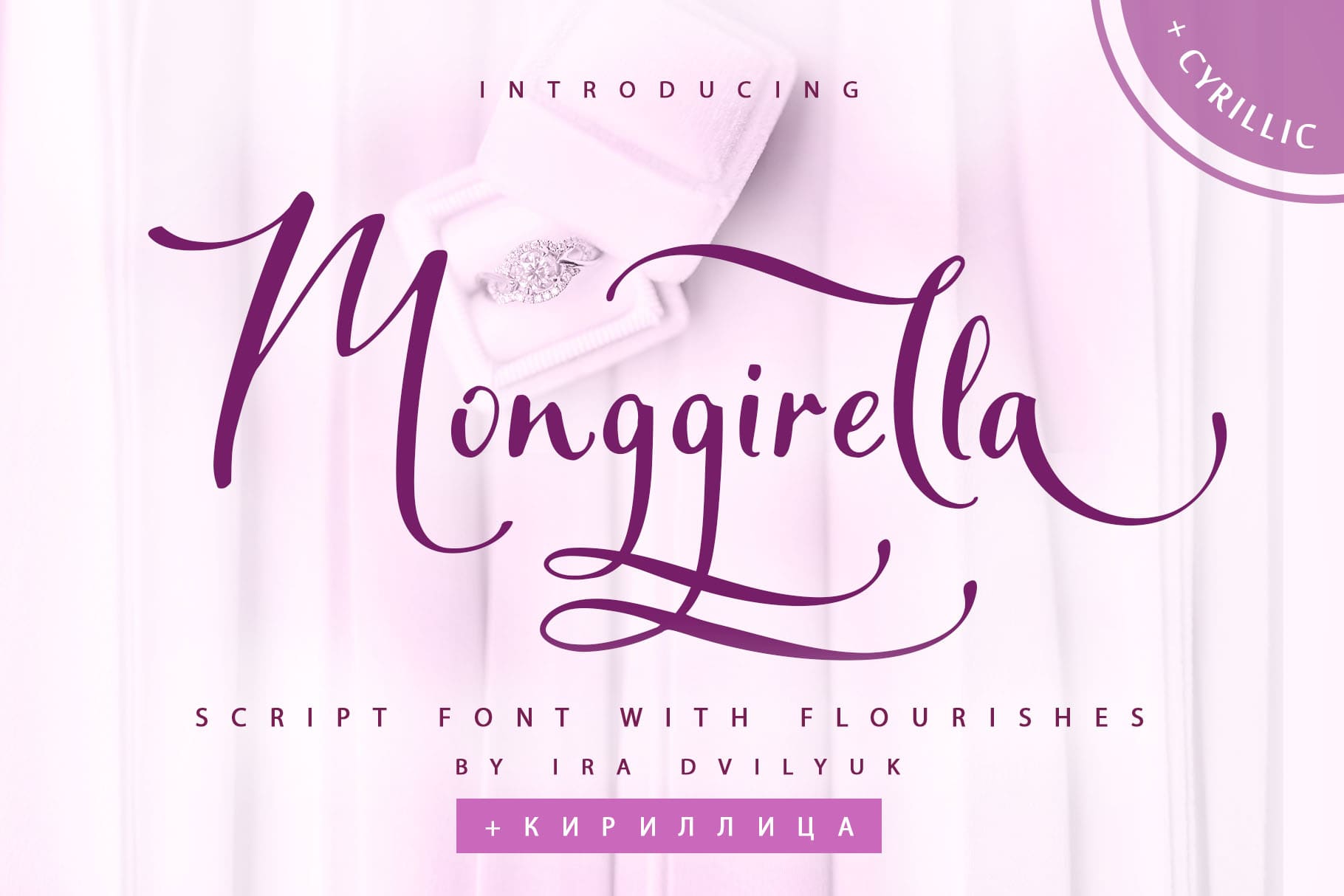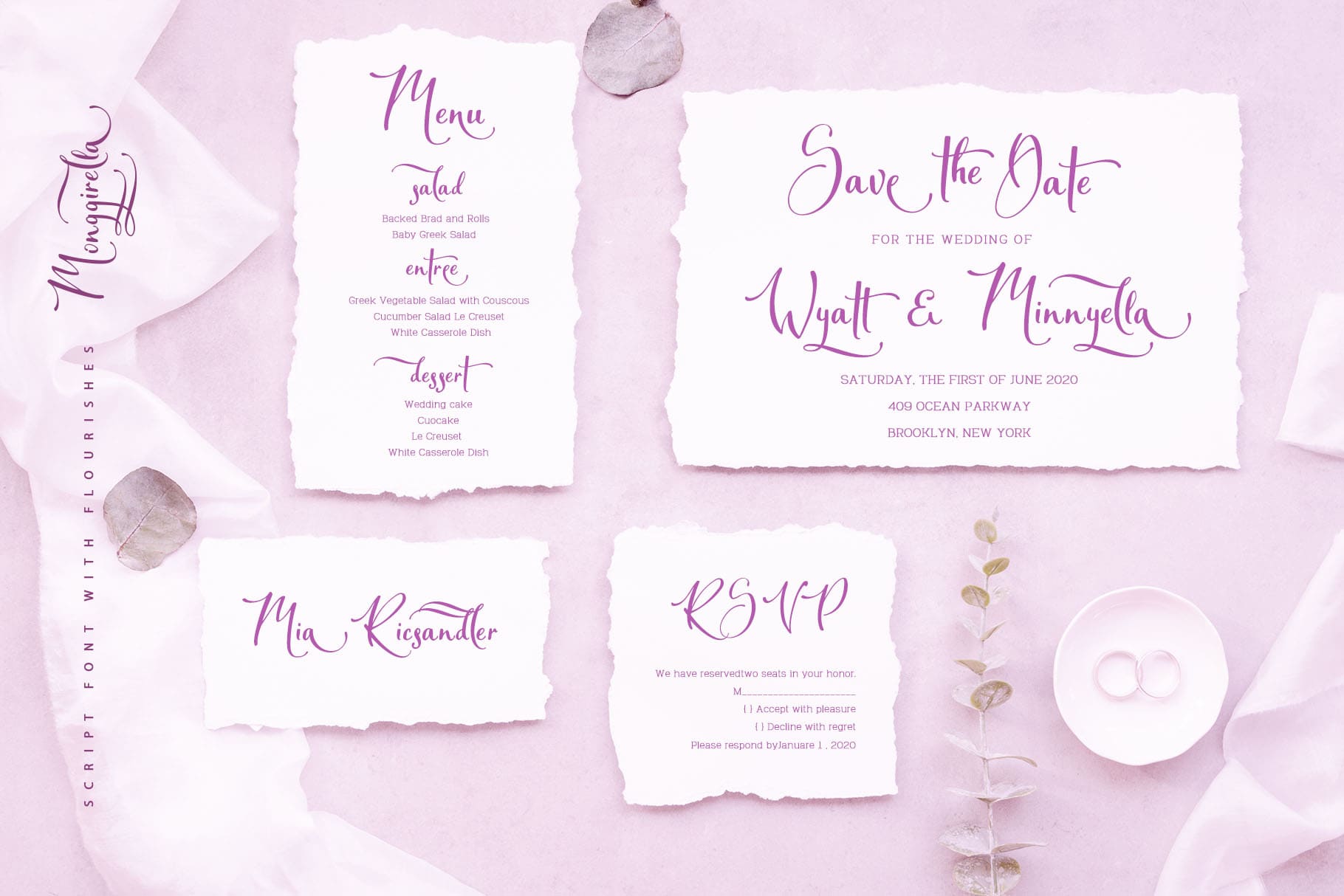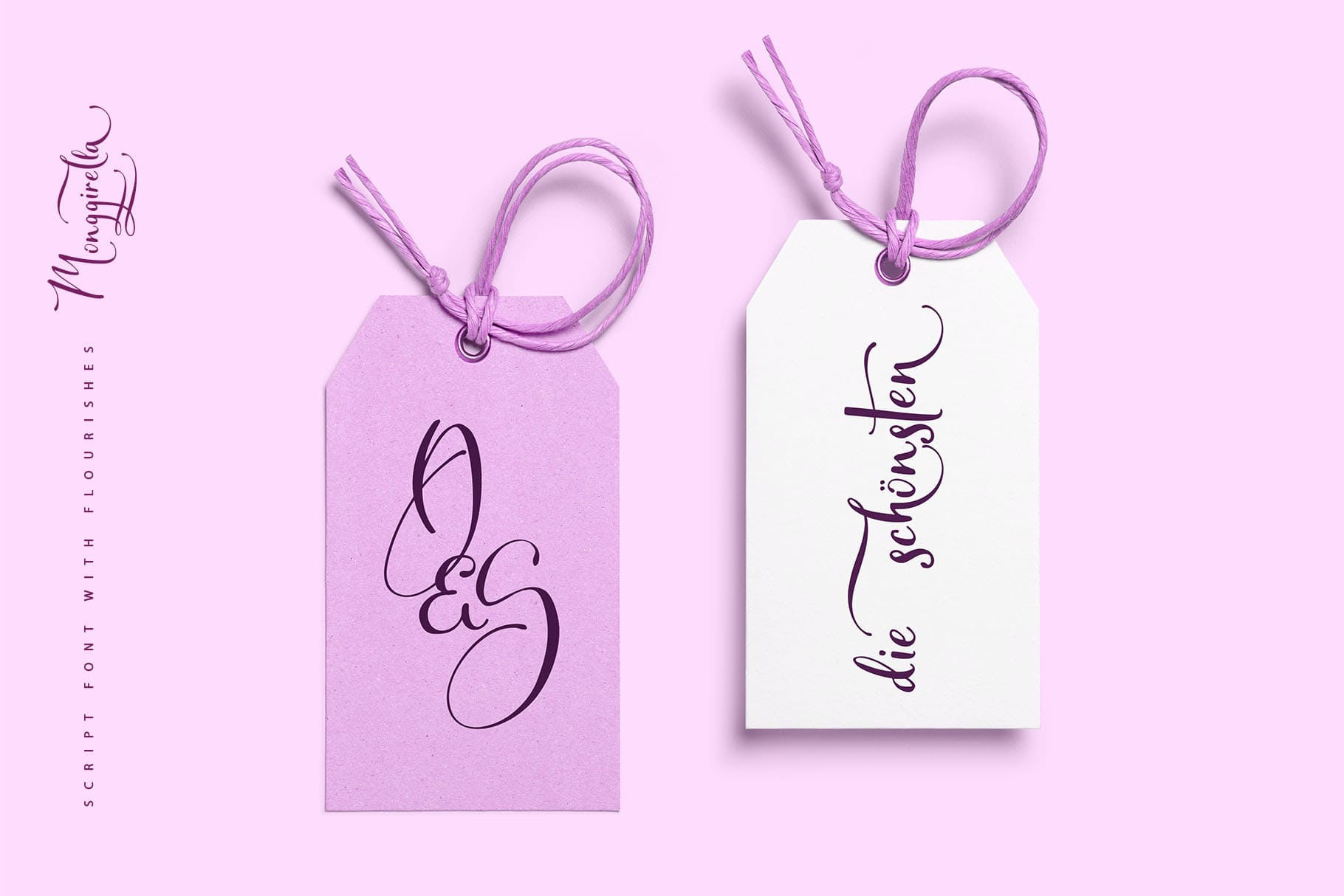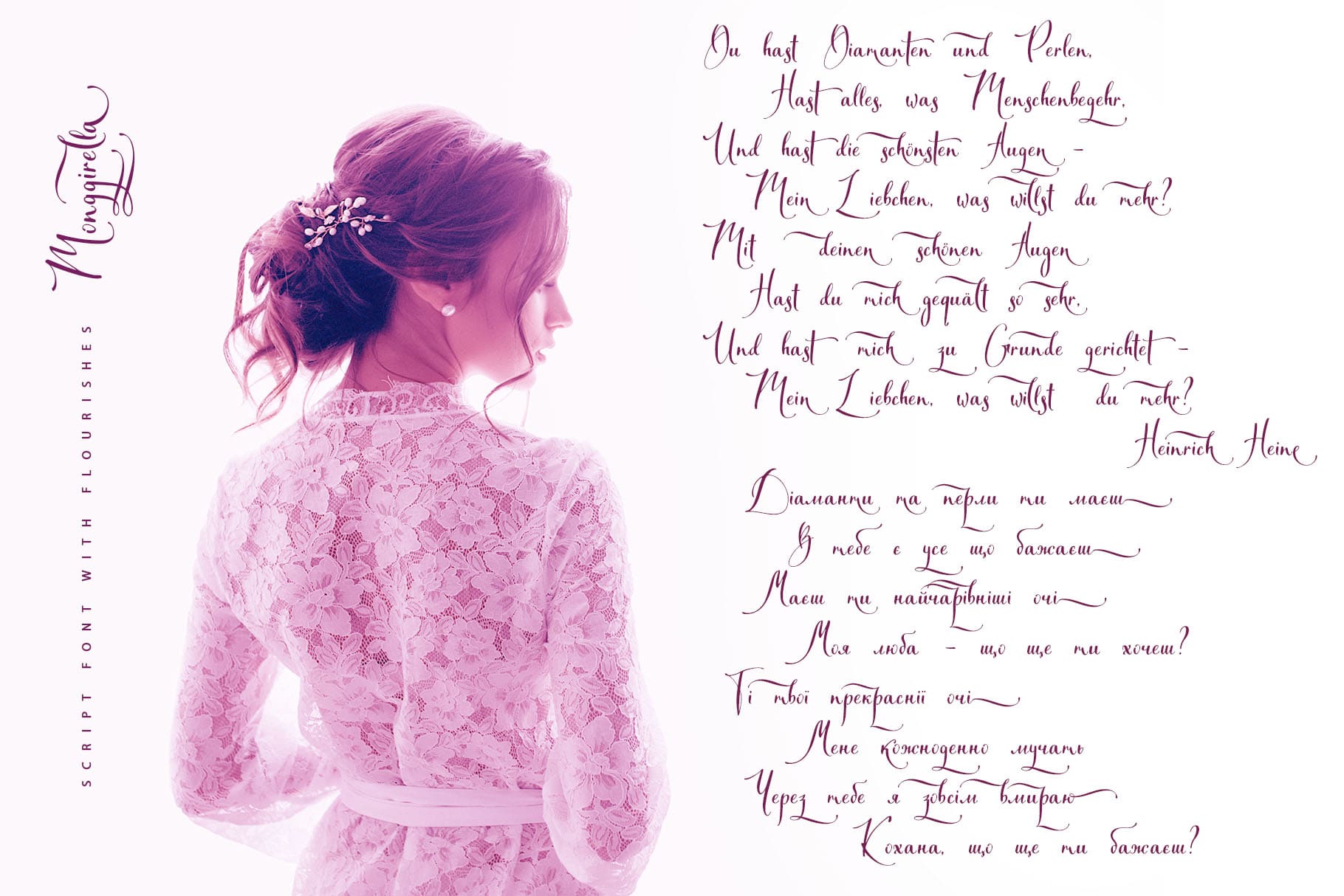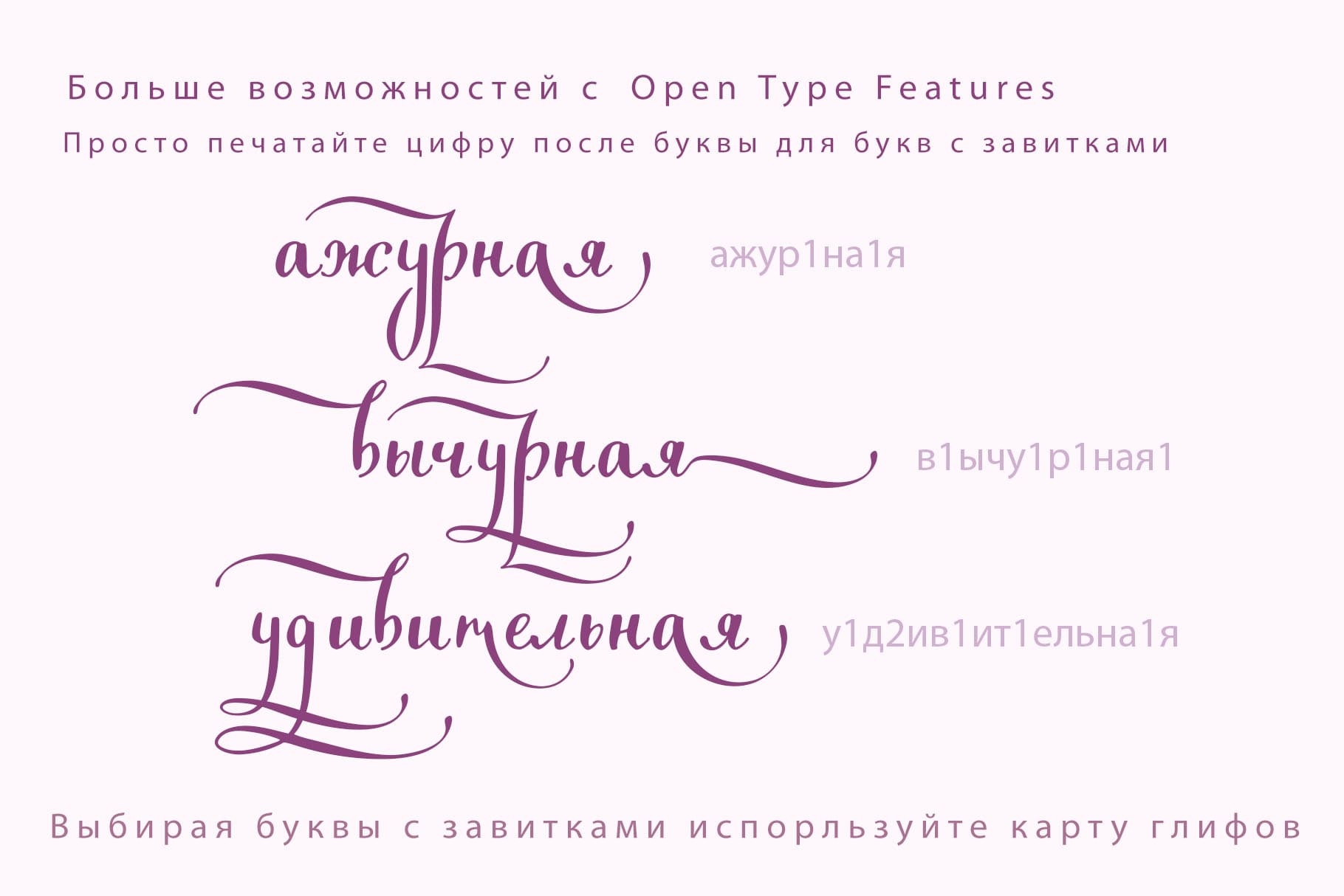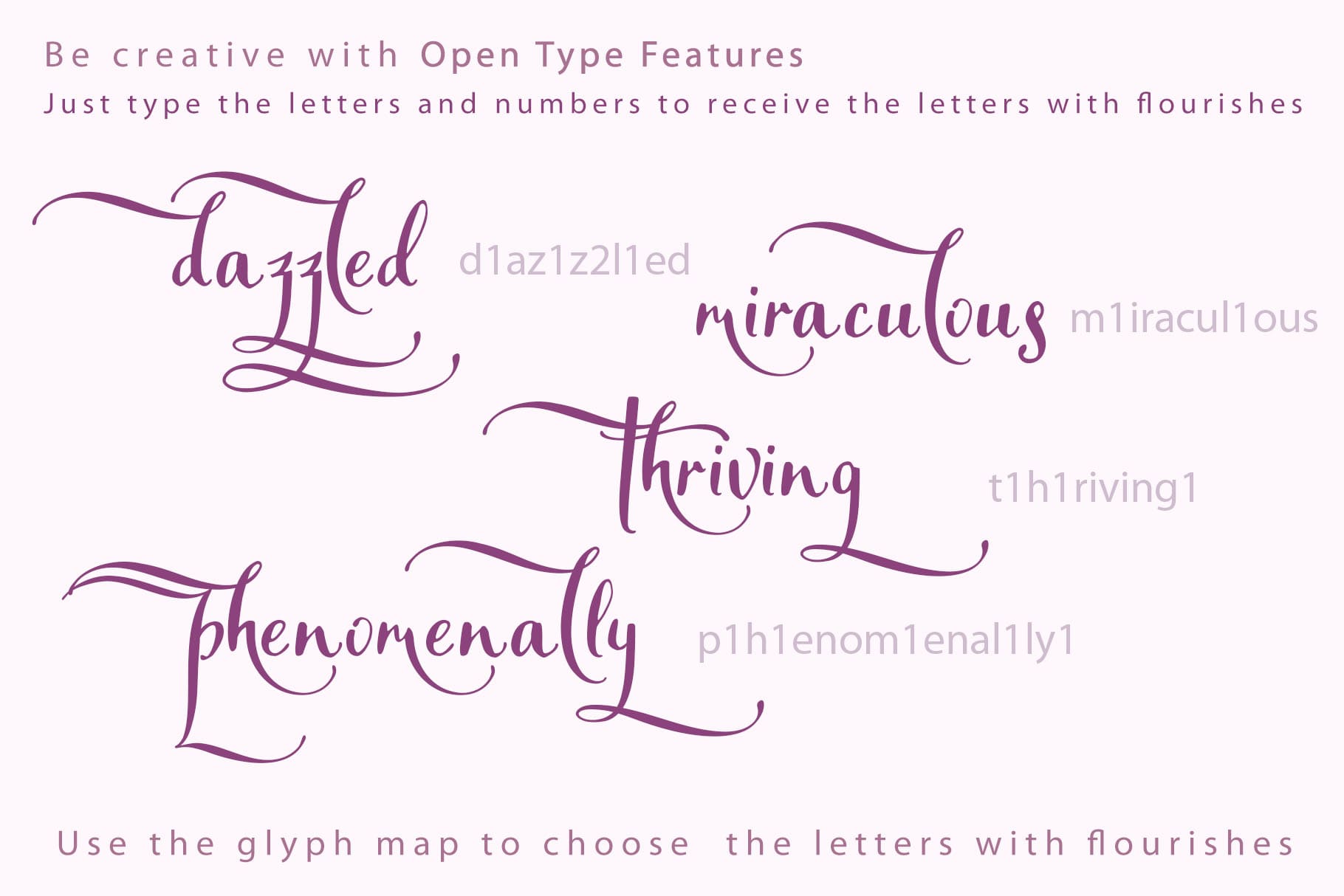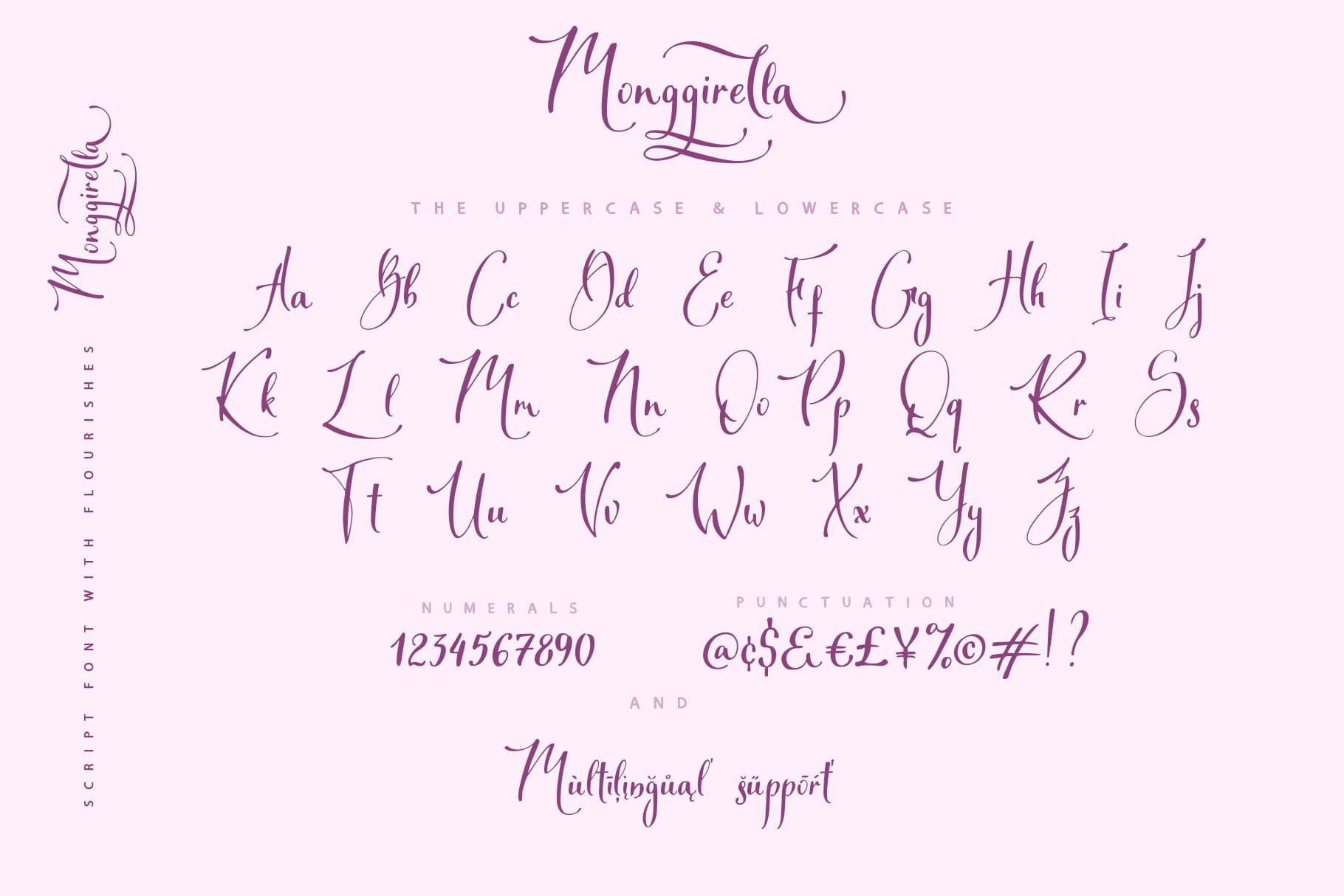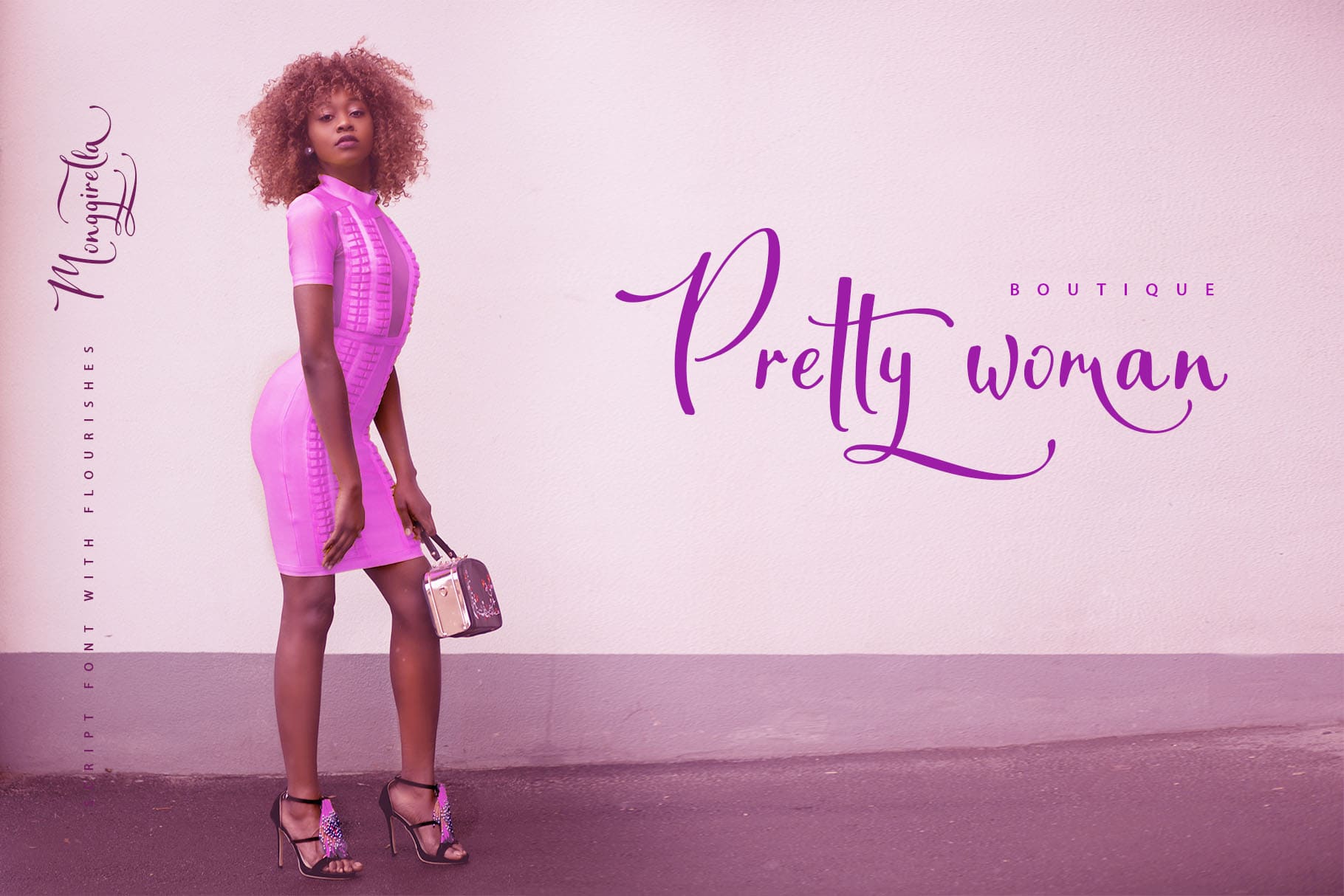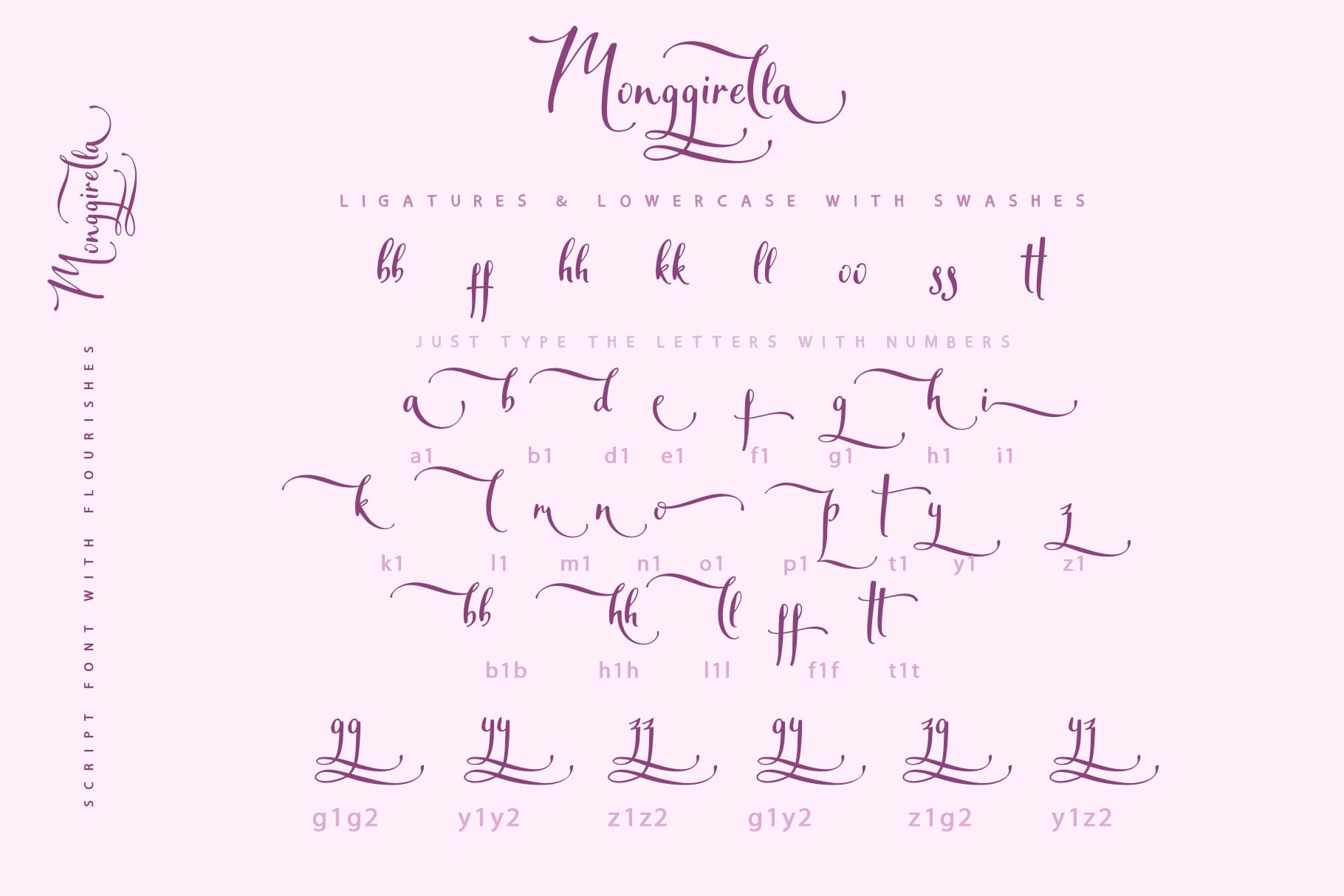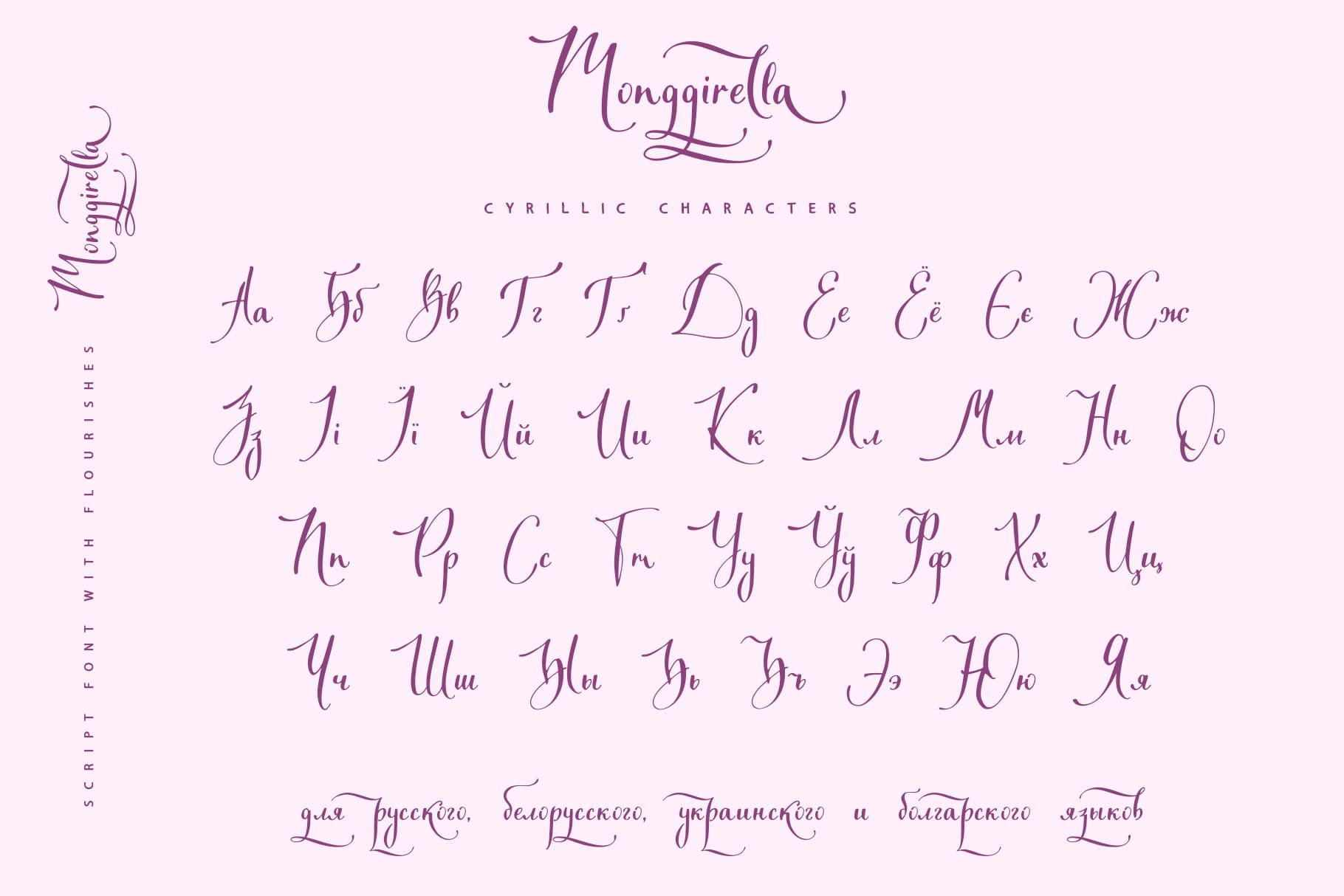
Monggirella script font is a pretty calligraphic script font with flourishes, that will look gorgeous on all your designs, wedding invitations, love stories, branding materials, logos, business and wedding cards, calligraphy Insta quotes elegant fashion sketches, calligraphy love monograms and much more.
Monggirella script font contains the Cyrillic glyphs too.
Monggirella script font contains a full set of uppercase and lowercase letters and can be used to create a handwritten calligraphy look.
Some letters include the flourishes and you can access it by typing numbers after letters. Please use the glyphs map to choose the letters with flourishes